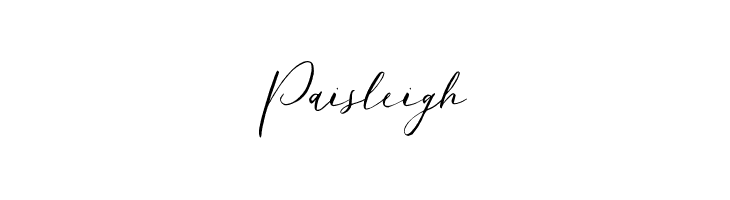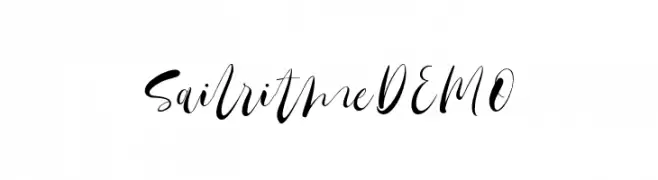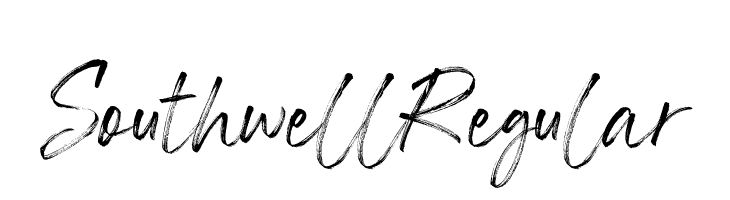
An elegant script font with flowing, cursive letterforms and decorative flourishes.
A playful, handwritten font with tall, narrow letters and whimsical strokes.
A bold, brushstroke font with a wild and energetic style.